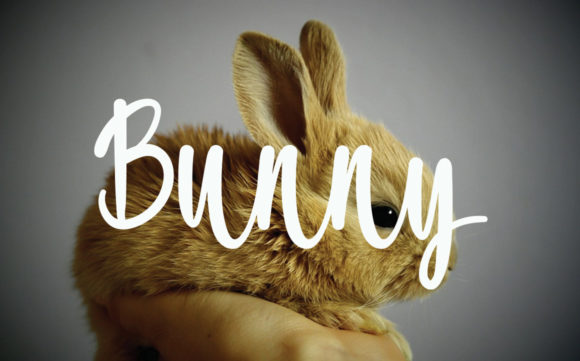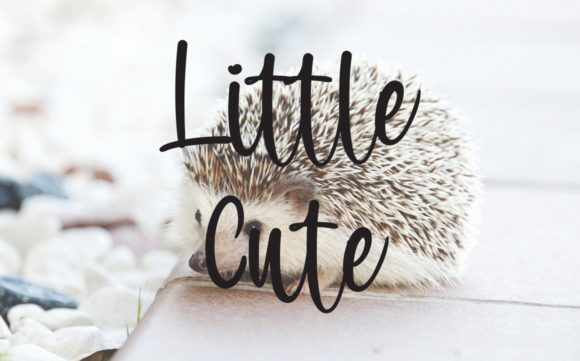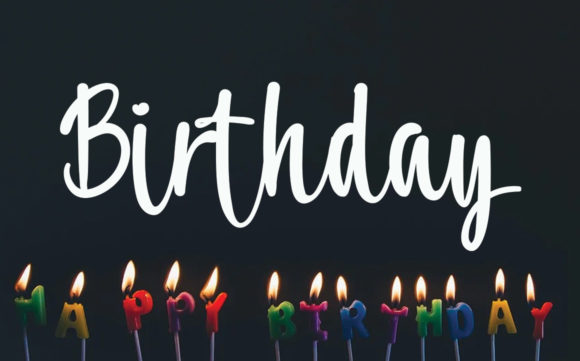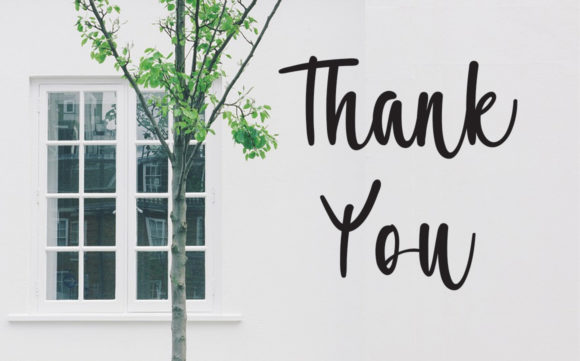
Hamster Sweety Font
About Hamster Sweety Font
Introducing “Hamster Sweety,” a casual and friendly handwritten font that adds a touch of warmth and charm to any project. With its playful yet elegant style, Hamster Sweety is perfect for a wide range of applications, from wall displays to wedding invitations, social media posts to product packaging.
Whether you’re designing advertisements, product labels, photography watermarks, or stationery, Hamster Sweety’s impressive typography will make your projects stand out with its unique personality and inviting vibe.
Experience the versatility of Hamster Sweety and watch as it brings your creative ideas to life. Whether you’re a professional designer or a DIY enthusiast, this font invites you to explore new possibilities and express yourself with confidence and style.
Add Hamster Sweety to your font collection today and discover the endless possibilities it offers for your designs. With its casual and friendly handwritten style, Hamster Sweety is sure to become a go-to choice for all your typography needs, inspiring creativity and delight with every use.